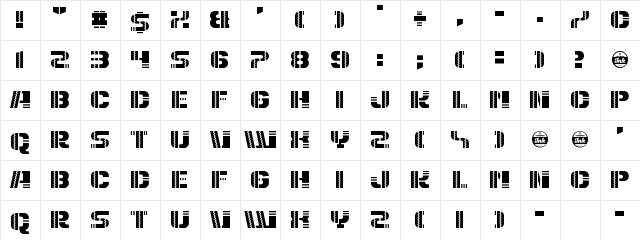
Puerto Magnifico Regular
| Designer | AM |
Design Context for Puerto Magnifico Typeface
Puerto Magnifico is a composed and adaptable typeface that performs quietly and consistently across a wide range of design contexts.